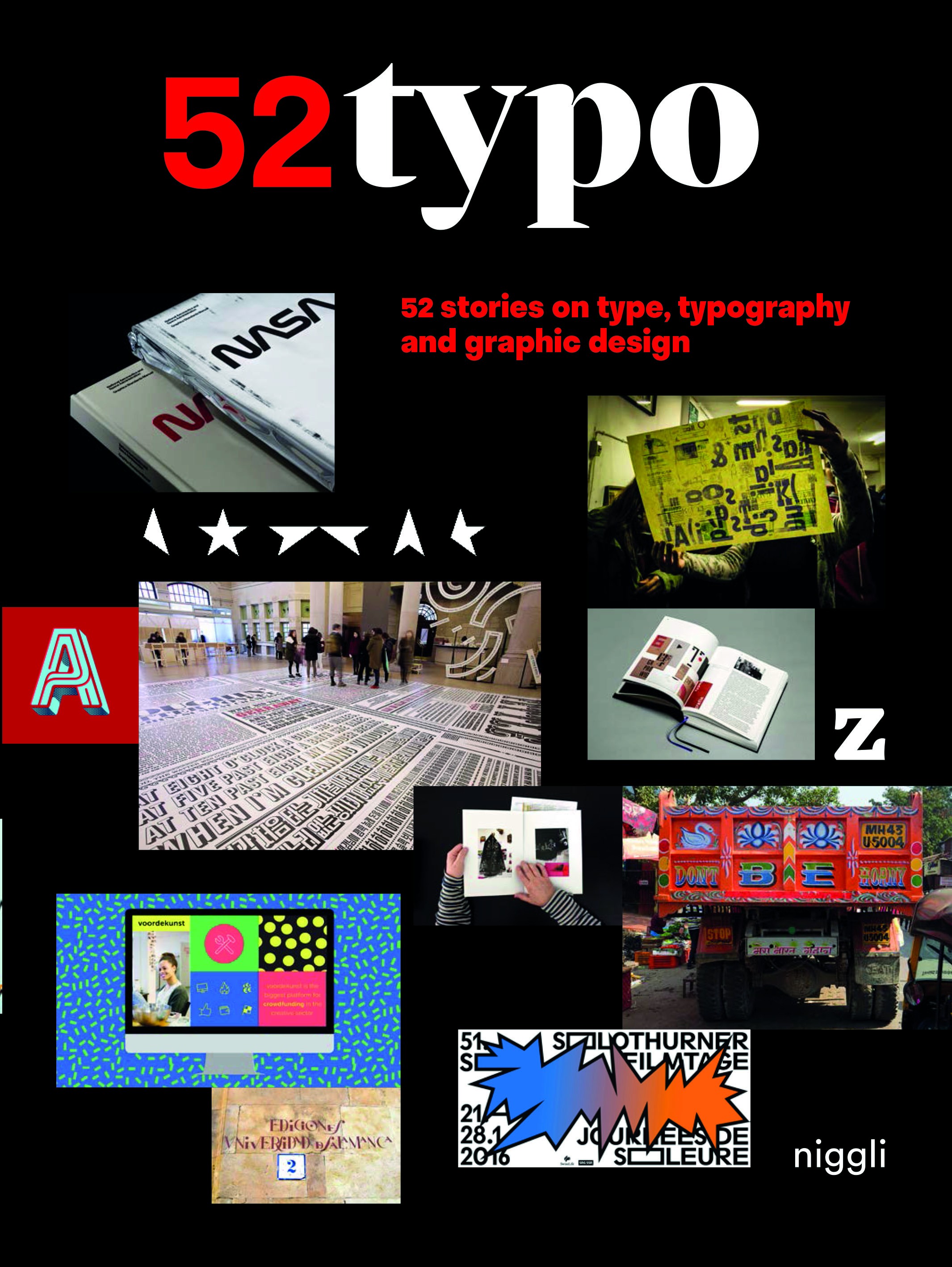
52 Typo: 52 stories on type, typography and graphic design
_ In cooperation with the Association Typographique Internationale
_ Broad range of topics
_ 52 illustrated contributions
_ Writers are specialists in their respective fields
Every day there is something happening in the world of typography and graphic design – something new being created in Buenos Aires, Paris, Tel Aviv, Tehran, Seoul or Melbourne. The most inspiring, trend-setting and enduring stories, events and works have been collected here to guide the reader to the highlights: 52 for 52 weeks, written by more than 40 experts
Releases such as the legendary 1975 NASA Graphic Standards Manual are presented and various creative approaches discussed. New fonts, typeface designers and foundries are introduced, classic American fonts newly interpreted and the question of why new fonts are always needed examined. Important new logos are presented, the big industry events such as the Typo in Berlin reported on and the winners of the European Design Awards presented. At the end of the book there are dedications to Adrian Frutiger and Alan Rickman, who was once a graphic designer.